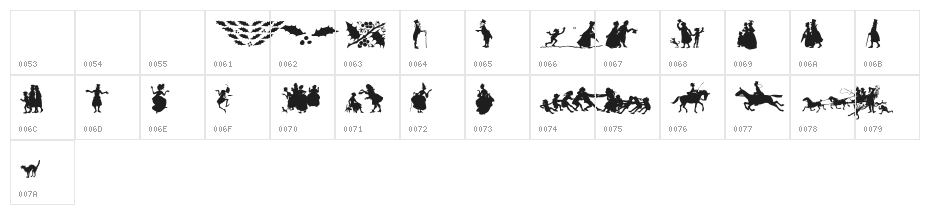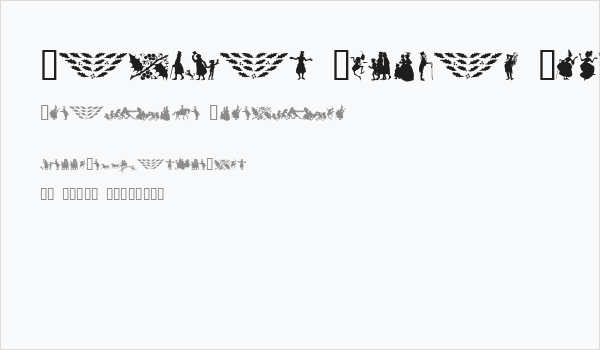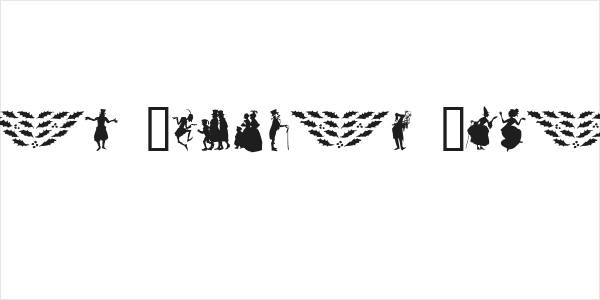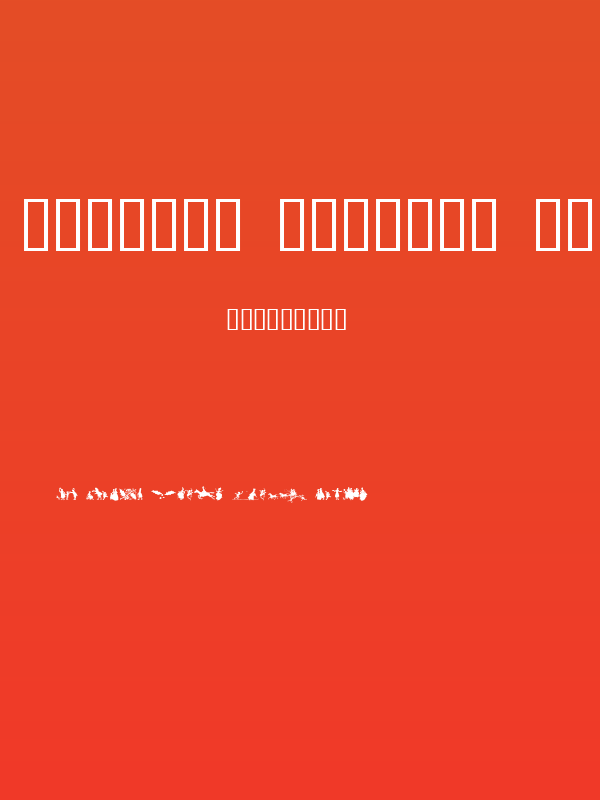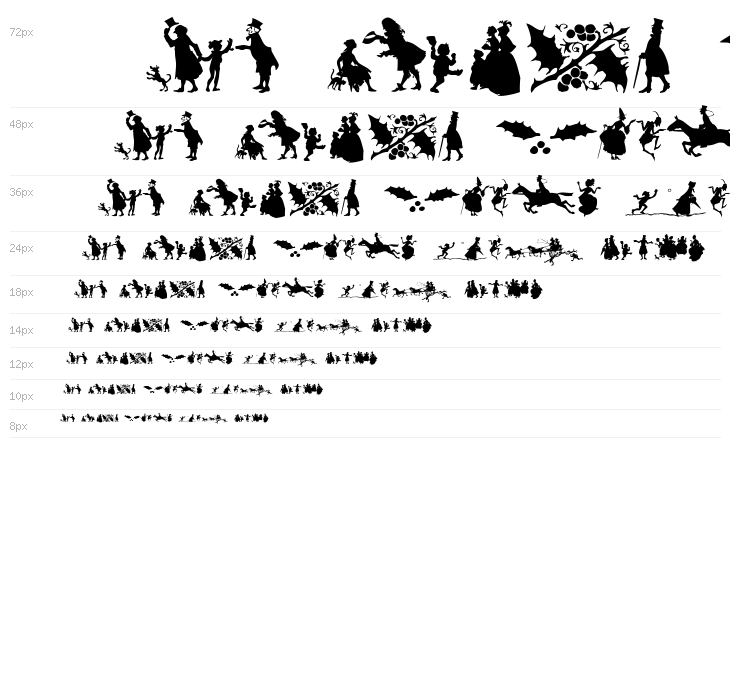
Rackham Holiday Ornament Font
Rackham Holiday Ornament Description
This decorative font features intricate holiday-themed silhouettes, capturing festive scenes with a vintage flair. The characters are composed of detailed illustrations depicting holiday activities, such as dancing, playing, and celebrating. Each character is a unique piece of art, showcasing a variety of figures and motifs that evoke a sense of nostalgia and whimsy. The font is perfect for adding a touch of holiday spirit to any project, with its playful and artistic design. The silhouettes are bold and clear, making them suitable for both digital and print media. This font is ideal for creating eye-catching designs that require a festive and artistic touch.
| Use Case | Logos, Headlines, Decorative elements |
| Proposed Projects | Holiday cards, festive invitations, seasonal posters, decorative banners, and themed merchandise. |